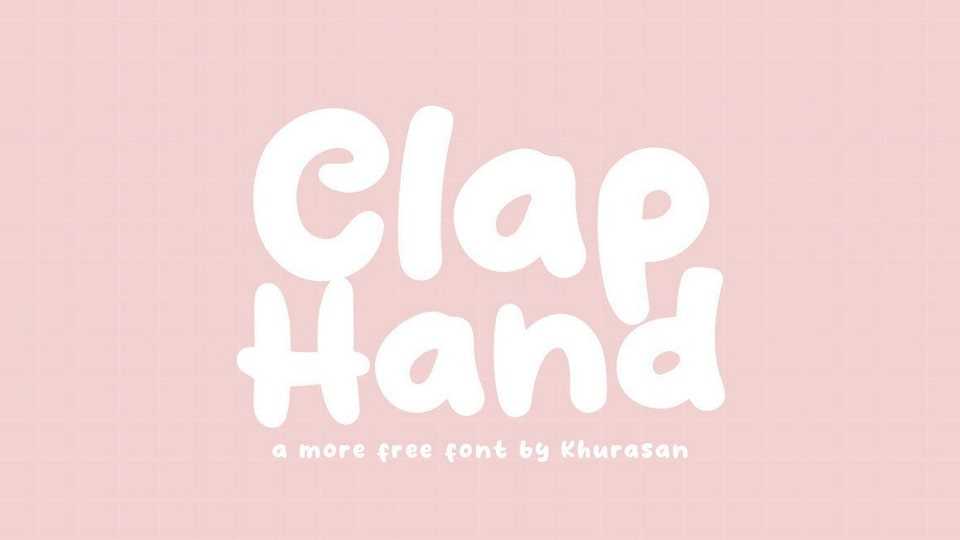
Download Clap Hand font, a lovely and cute handwritten typeface. Clap Hand font is perfect for posters, logos, magazines, book covers, banners, and many more items.